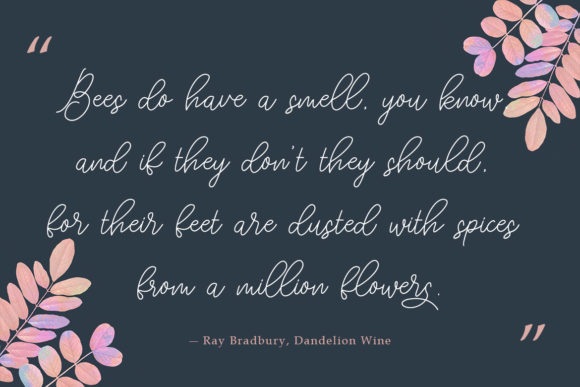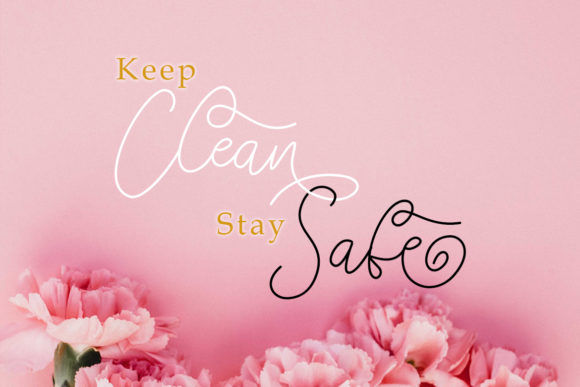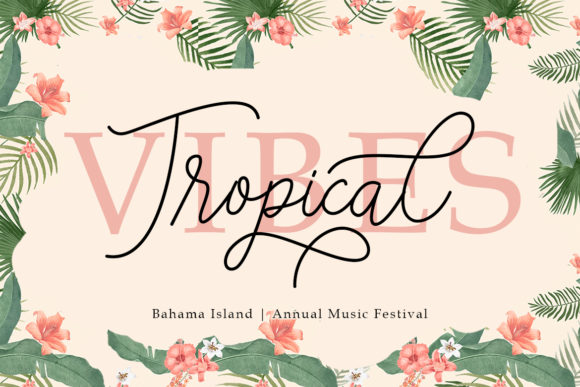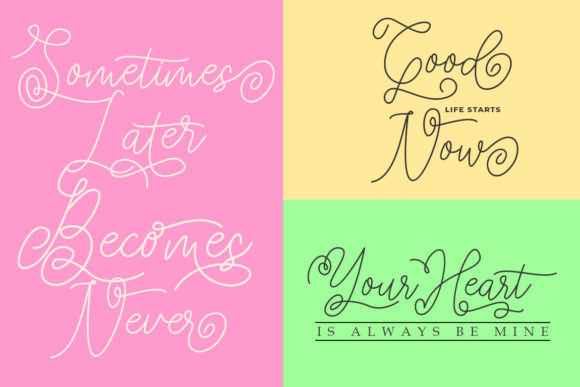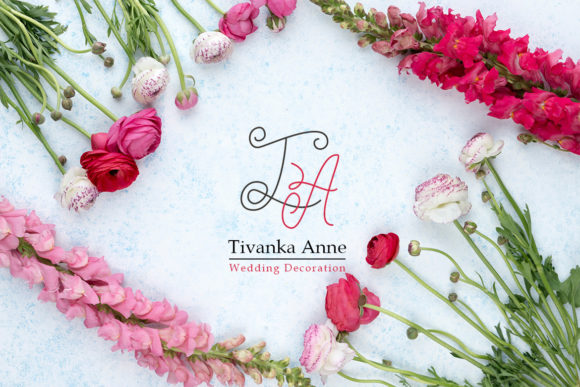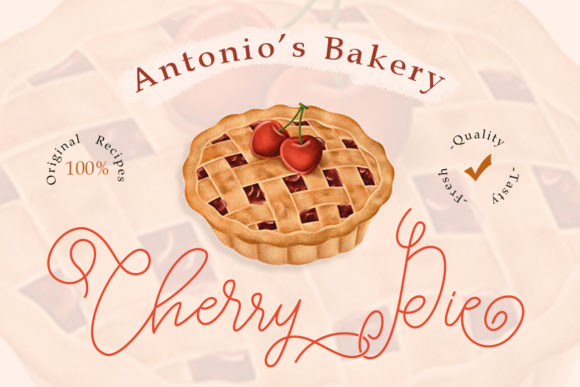
Brahmone Font: The Lovely Monoline Handwritten Font for Crafting Projects
Are you a designer or crafter looking for a unique and versatile font to elevate your crafting projects? Look no further than Brahmone Font! This lovely monoline handwritten font has a distinctive appeal that makes it perfect for a wide range of creative endeavors. In this article, we’ll dive into the features and benefits of Brahmone Font, and explore how it can add a touch of personality to your crafting projects.
What is Brahmone Font?
Brahmone Font is a monoline handwritten font that boasts a clean and elegant design. Its unique appeal lies in its simplicity and fluidity, making it perfect for a variety of crafting projects, from DIY tutorials and crafting blogs to social media graphics and more. The font’s monoline style gives it a modern and sophisticated look that’s sure to grab attention.
Key Features of Brahmone Font
- Unique Monoline Design: Brahmone Font features a distinctive monoline style that sets it apart from other handwritten fonts.
- Handwritten Appeal: The font’s handwritten nature gives it a personal and approachable feel that’s perfect for crafting projects.
- Clean and Elegant: Brahmone Font’s clean and elegant design makes it suitable for a wide range of creative endeavors.
- Versatile: This font is perfect for various crafting projects, including DIY tutorials, crafting blogs, social media graphics, and more.
Benefits of Using Brahmone Font
So, why choose Brahmone Font for your crafting projects? Here are just a few benefits of using this lovely monoline handwritten font:
- Adds Personality: Brahmone Font’s unique design adds a touch of personality to your crafting projects, setting them apart from the rest.
- Enhances Readability: The font’s clean and elegant design makes it easy to read, even in small sizes.
- Perfect for Branding: Brahmone Font’s distinctive style makes it an excellent choice for branding and establishing a visual identity.
Creative Ways to Use Brahmone Font
Brahmone Font is an incredibly versatile font that can be used in a wide range of crafting projects. Here are some creative ways to use this lovely monoline handwritten font:
- DIY Tutorials: Use Brahmone Font to add a personal touch to your DIY tutorials and crafting instructions.
- Crafting Blogs: Elevate your crafting blog with Brahmone Font’s clean and elegant design.
- Social Media Graphics: Add a touch of personality to your social media graphics with Brahmone Font.
- Stationery and Invitations: Use Brahmone Font to create beautiful stationery and invitations for special occasions.
In conclusion, Brahmone Font is a lovely monoline handwritten font that’s perfect for a wide variety of crafting projects. Its unique appeal, clean design, and versatility make it an excellent choice for designers and crafters looking to add a touch of personality to their creations. Whether you’re working on a DIY tutorial, crafting blog, or social media graphic, Brahmone Font is sure to elevate your project and make it stand out.